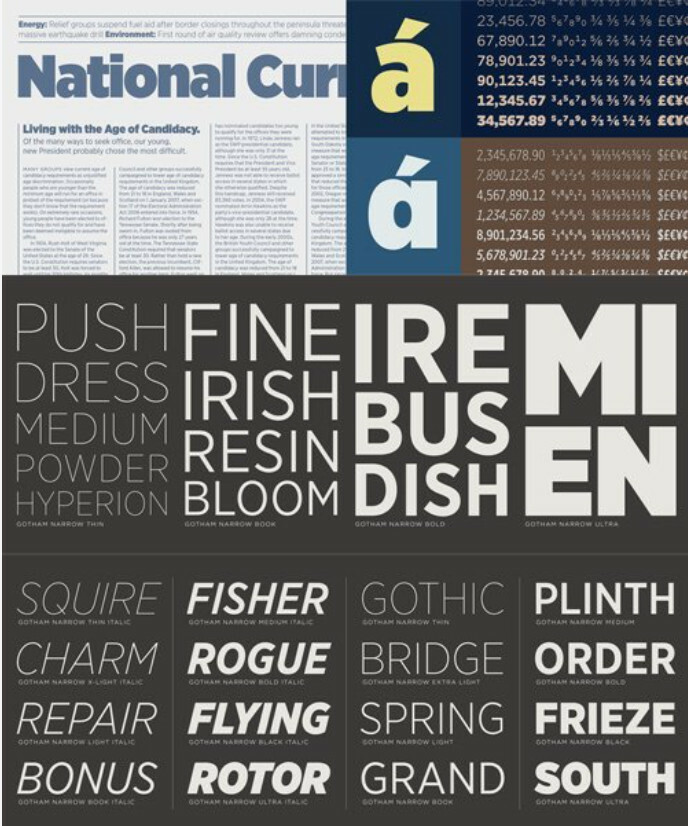
Gotham Narrow Font Family
Gotham Narrow Font Family – a new and economical Gotham, specifically designed for text.Typefaces whose letterforms are rooted in the square and circle are known as “geometrics,” and they’re one of typography’s great paradoxes. Their wide proportions and open shapes make them easy to read at text sizes, and a well-designed geometric can reinforce this clarity through careful attention to the design’s internal proportions as well. (Gotham’s large lowercase has dilated features, succinct ascenders and descenders, and a generous fit, which combine to make Gotham especially clear at text sizes and below.) But because geometrics are wider than average, they can be difficult to use in narrow columns, which is exactly where text most often appears.